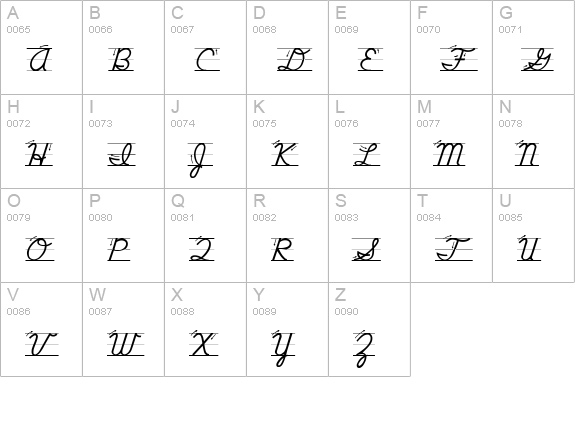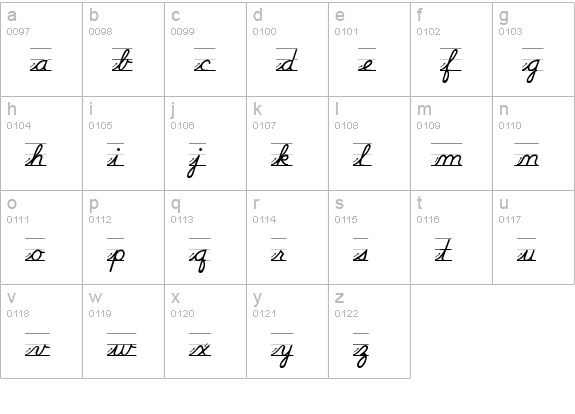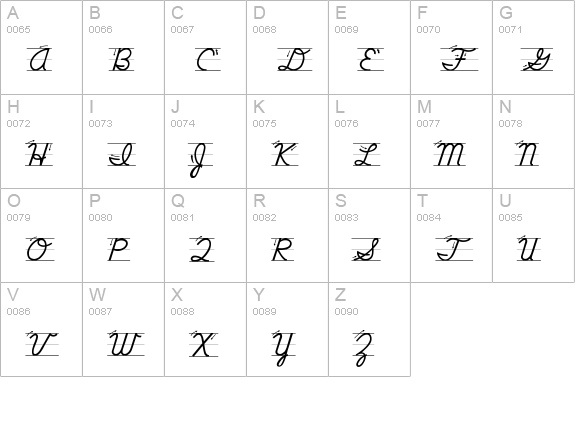
DNealianArrows Font Details
DNealianArrows font is a unique and stylish typeface that combines elegant curves with modern design elements. This font features arrows integrated into each character, adding a touch of creativity and sophistication to your projects. Whether you're designing a logo, poster, or invitation, DNealianArrows font is sure to make a statement. Best of all, this font is completely free to download at FontsMarket.com. So, don't miss out on the opportunity to enhance your designs with this versatile and eye-catching typeface. Download DNealianArrows font today and let your creativity soar!